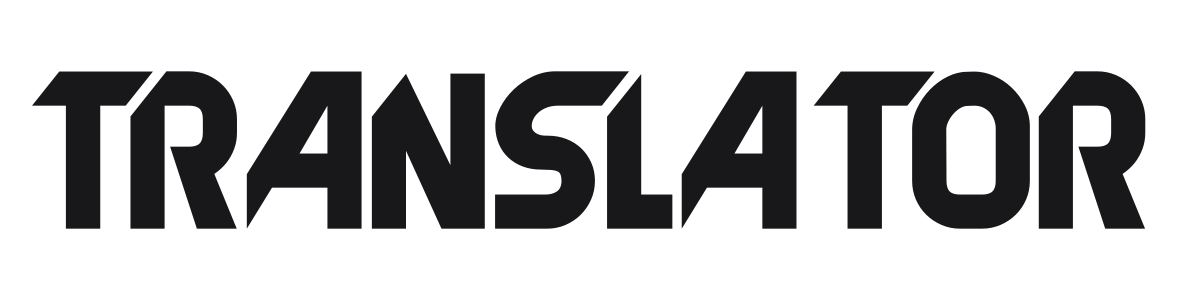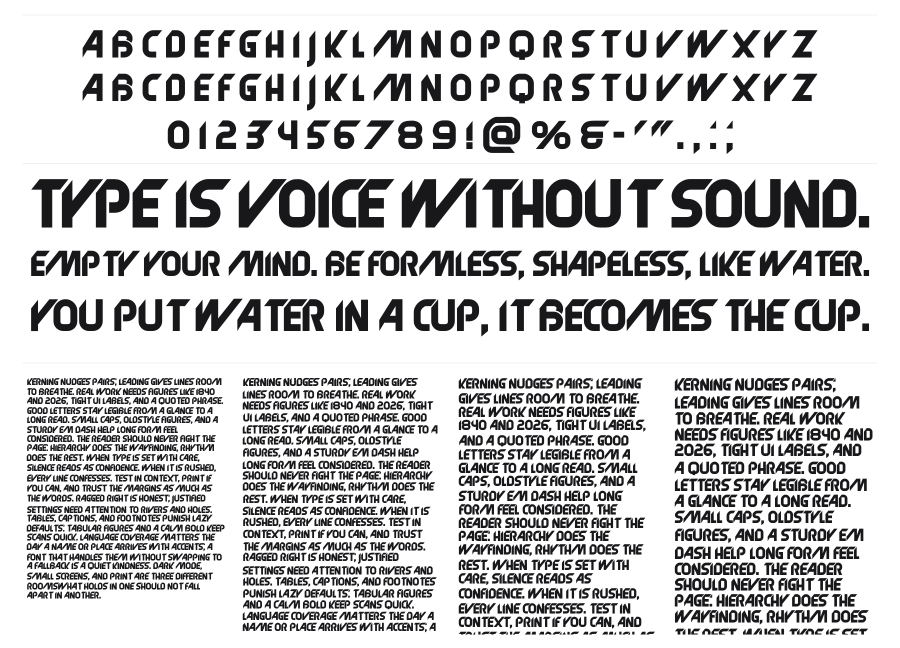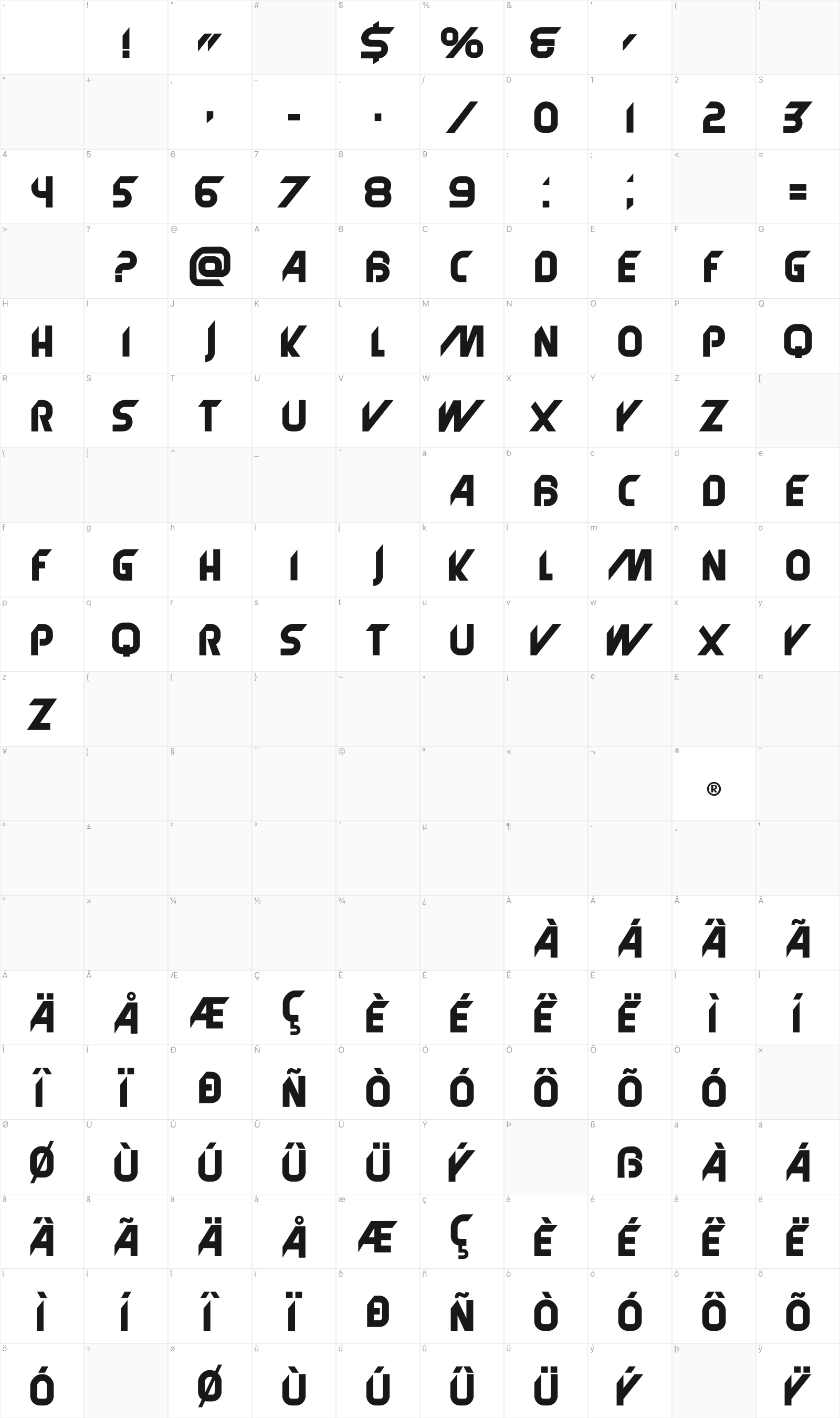
Translator
Translator is a heavy bold display sans with sharp diagonal cuts and angular geometry that give it a retro-futuristic edge. Letters share structural strokes and lean into a compact, interlocking rhythm that feels fast and mechanical. It suits titles, posters, and branding where impact and attitude matter more than subtlety.